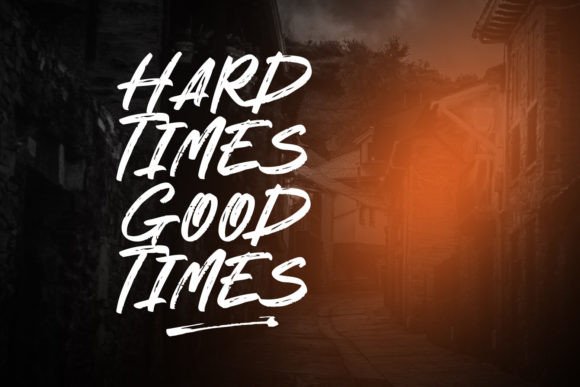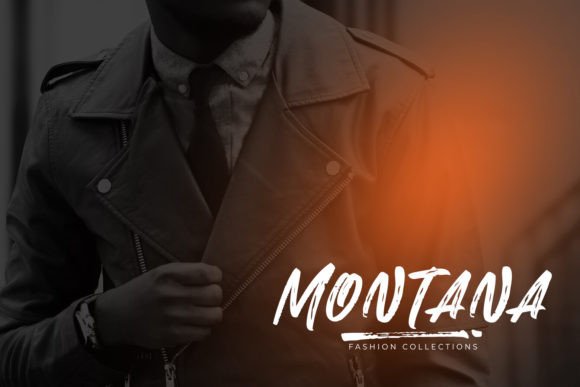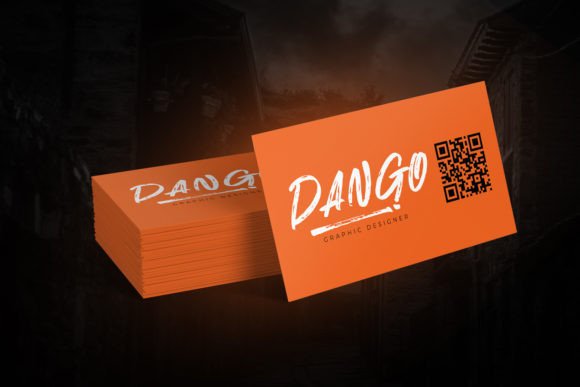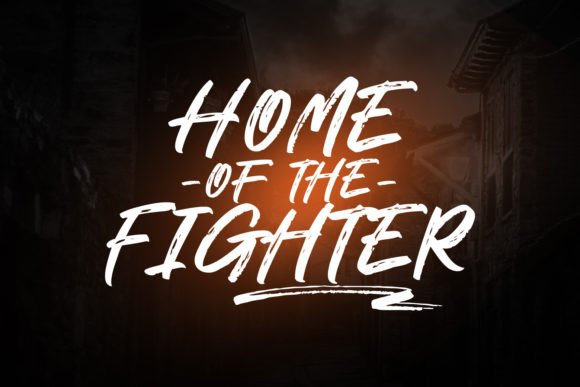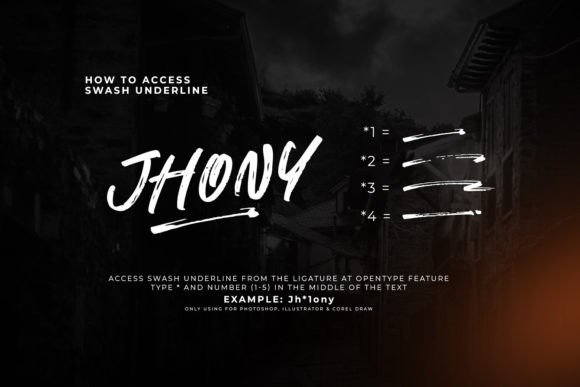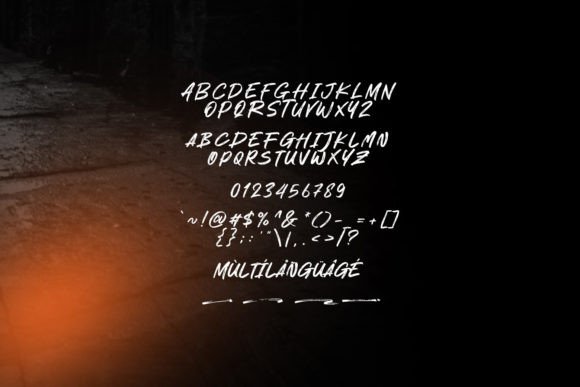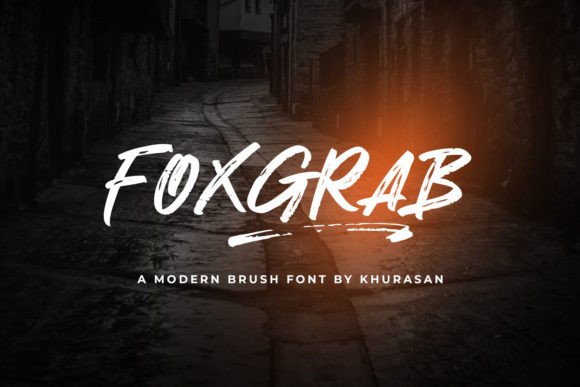
Introducing Foxgrab Font: The Ultimate Modern Brush Font for Creative Designs
Are you a designer or crafter looking for a unique and quirky font to elevate your creative projects? Look no further than Foxgrab Font! This modern brush font is perfect for a wide range of applications, from posters and logos to magazines, book covers, banners, and more. With its distinctive handwritten style, Foxgrab Font is sure to add a touch of personality and whimsy to your designs.
What Makes Foxgrab Font So Special?
Foxgrab Font is a modern brush font that boasts a quirky, handwritten aesthetic that’s perfect for designers and crafters who want to add a personal touch to their work. Its unique characteristics make it an incredibly versatile font that can be matched to an incredibly large set of projects. Whether you’re creating a bold poster, a stylish logo, or a captivating book cover, Foxgrab Font is the perfect choice.
Endless Design Possibilities with Foxgrab Font
With Foxgrab Font, the design possibilities are endless! This modern brush font can be used to create a wide range of designs, including:
- Posters: Create eye-catching posters that grab attention with Foxgrab Font’s bold and playful style.
- Logos: Develop a unique and memorable logo that showcases your brand’s personality with Foxgrab Font.
- Magazines: Add a touch of whimsy to your magazine layouts with Foxgrab Font’s quirky handwritten style.
- Book Covers: Create captivating book covers that stand out from the crowd with Foxgrab Font.
- Banners: Design stunning banners that showcase your message with Foxgrab Font’s modern brush style.
Why Choose Foxgrab Font?
So, why should you choose Foxgrab Font for your design projects? Here are just a few reasons:
- Unique Style: Foxgrab Font boasts a unique and quirky handwritten style that’s sure to add a touch of personality to your designs.
- Versatility: This modern brush font can be matched to an incredibly large set of projects, making it a versatile addition to your font collection.
- Ease of Use: Foxgrab Font is easy to use and can be easily integrated into your design workflow.
Tips for Using Foxgrab Font
To get the most out of Foxgrab Font, here are a few tips to keep in mind:
- Experiment with Different Sizes: Foxgrab Font looks great in a variety of sizes, so don’t be afraid to experiment with different sizes to find the one that works best for your design.
- Play with Colors: Foxgrab Font looks great in a range of colors, so try experimenting with different colors to add some visual interest to your design.
- Combine with Other Fonts: Foxgrab Font pairs well with other fonts, so try combining it with other fonts to create a unique and interesting design.
In conclusion, Foxgrab Font is a modern brush font that’s perfect for designers and crafters who want to add a touch of personality and whimsy to their creative projects. With its unique handwritten style, versatility, and ease of use, Foxgrab Font is a great addition to any font collection. So why wait? Get Foxgrab Font today and start creating stunning designs that stand out from the crowd!
Whether you’re a seasoned designer or a crafter just starting out, Foxgrab Font is the perfect choice for anyone looking to elevate their designs and add a touch of personality to their work. So go ahead, get creative, and see what amazing designs you can create with Foxgrab Font!